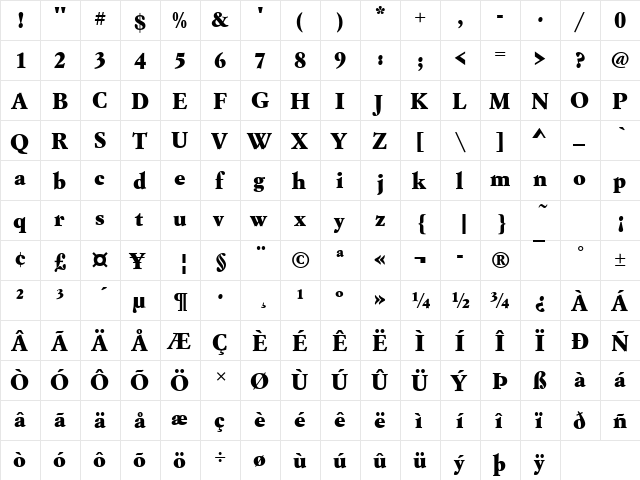
GaramondNo9TExtBol Regular
Design Context for GaramondNo9TExtBol Typeface
GaramondNo9TExtBol offers clean, dependable letterforms without strong stylistic allegiance, making it a practical choice for designers who need flexibility.
Pro Tip: Pair GaramondNo9TExtBol with a font of contrasting weight or personality to build a more expressive typographic hierarchy.